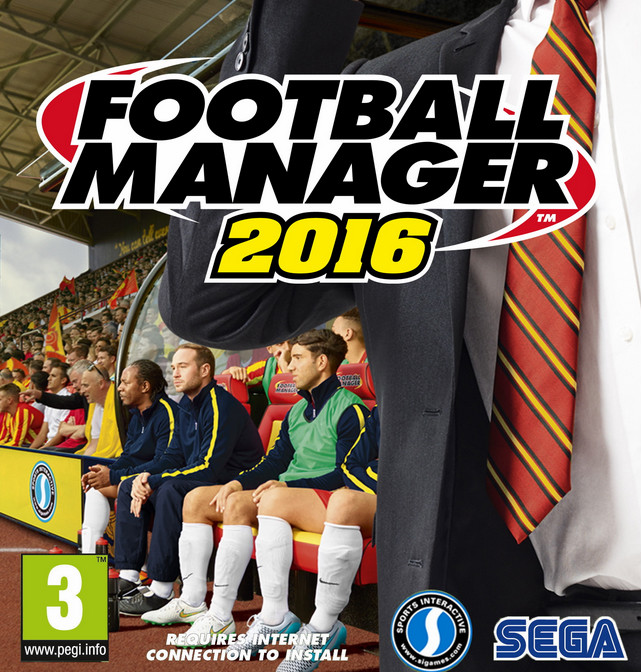
Football Manager 2016 Font
Fonts in UseFootball Manager is a football management simulation video game developed by Sports Interactive. It allows players to take on the role of a football manager, making strategic decisions, managing players, and leading their team to success in various competitions.
The logo of Football Manager 2016 features two fonts. The "Football Manager" part resembles Futura Extra Bold Italic, while the "2016" part resembles a manually obliqued version of Aachen Bold.